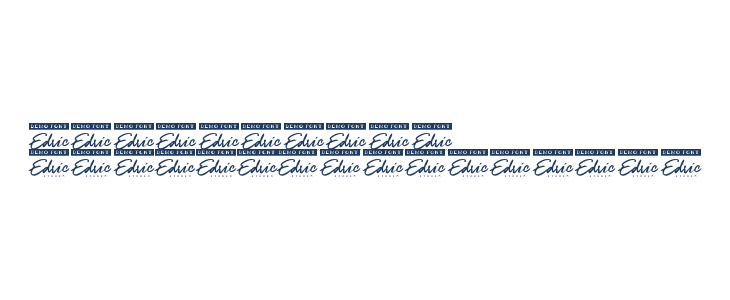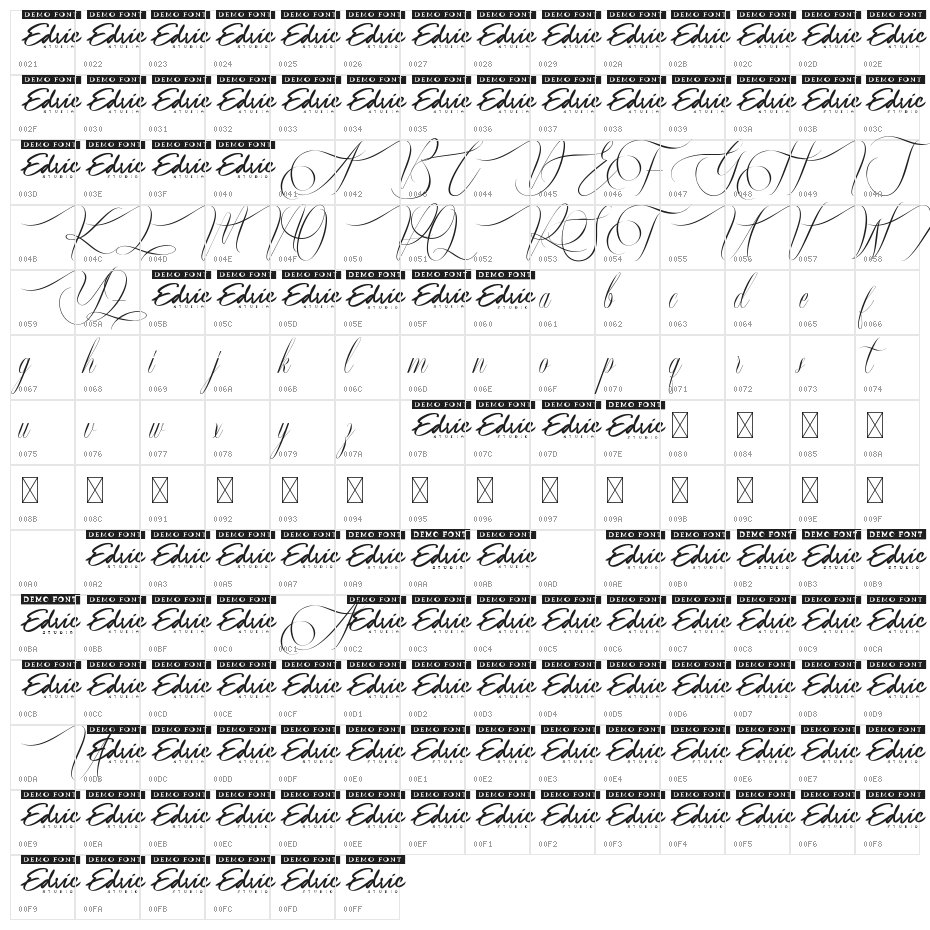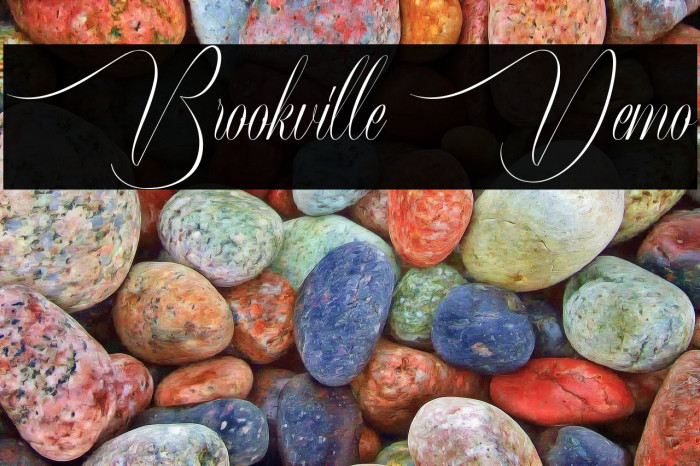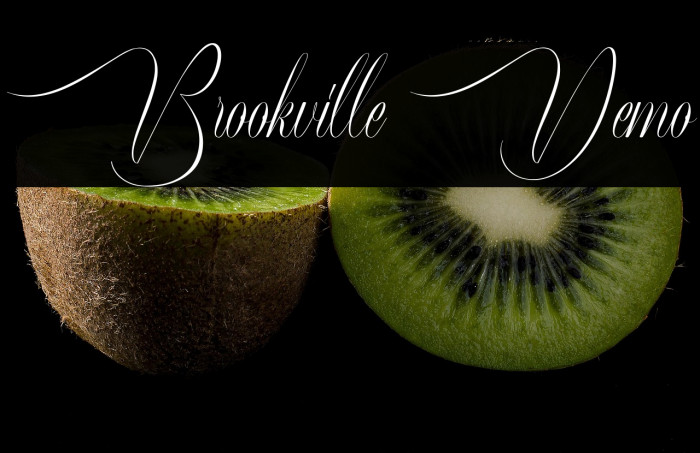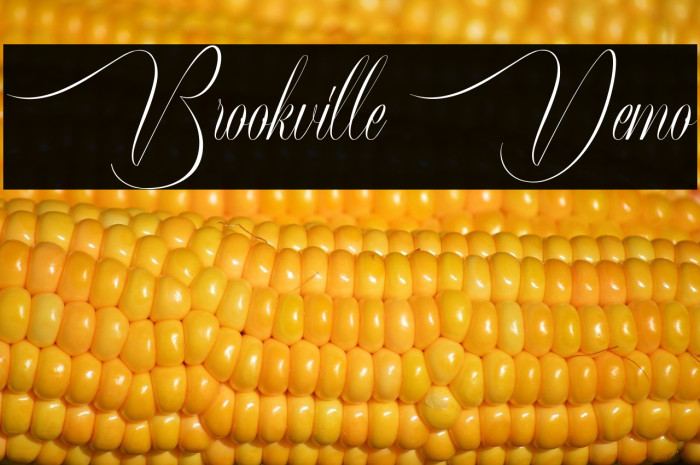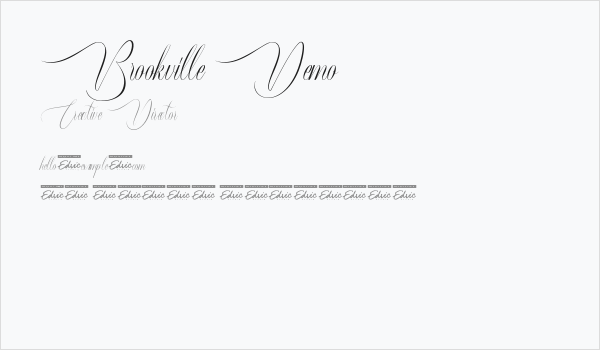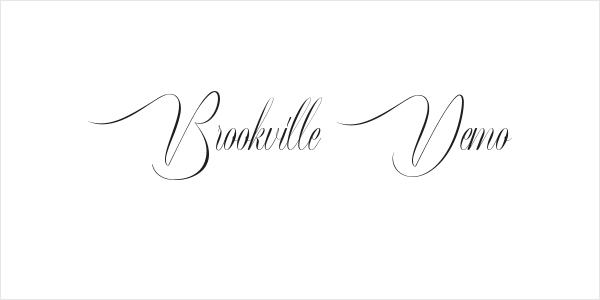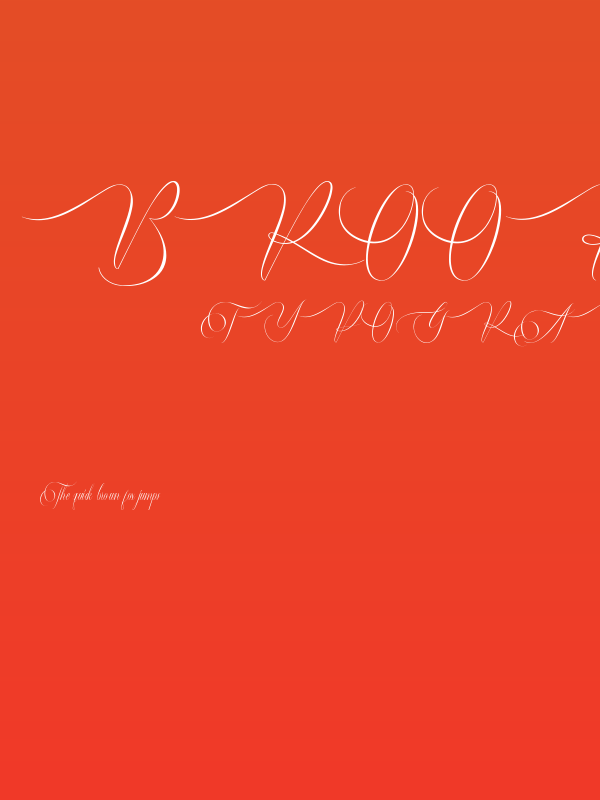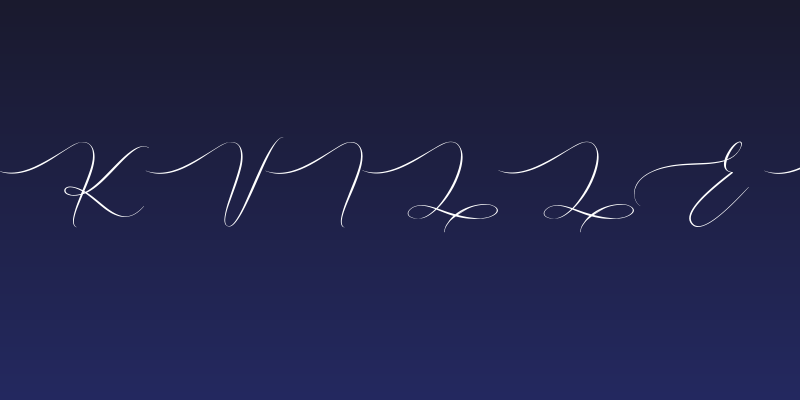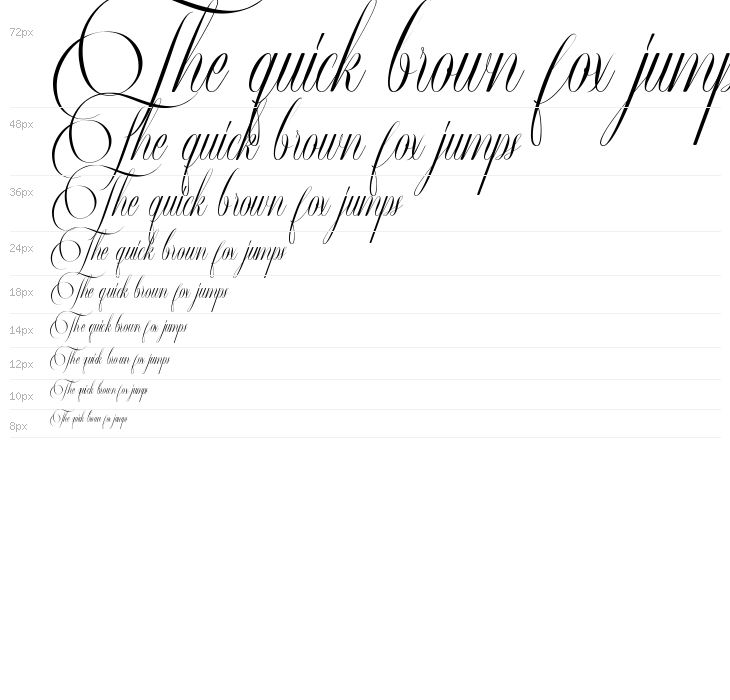
Brookville Demo Font
Brookville Demo Description
This elegant script font features a flowing, cursive style with high contrast between thick and thin strokes. The uppercase letters are ornate and decorative, while the lowercase letters maintain a graceful and fluid appearance. The font's design is reminiscent of classic calligraphy, with sweeping curves and intricate details that give it a sophisticated and artistic look. The characters are closely spaced, enhancing the connected, handwritten feel. This font is ideal for projects that require a touch of elegance and refinement, such as wedding invitations, formal event programs, or luxury branding.
| Proposed Projects | Wedding invitations, formal event programs, luxury branding, elegant stationery. |